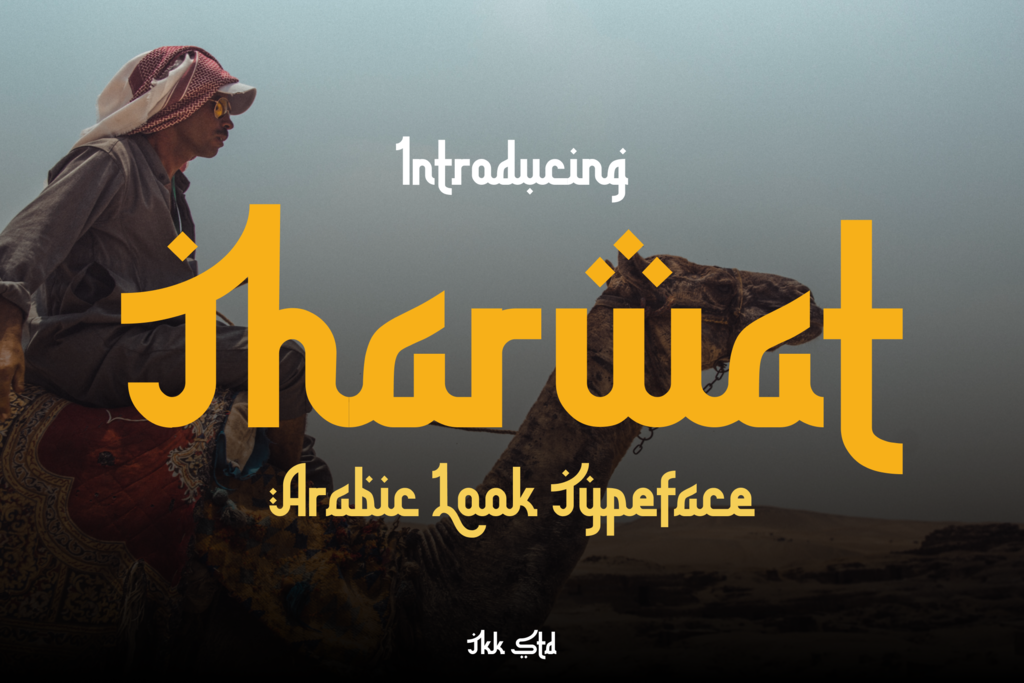
Tharwat Arabic font took the ethnic look of Arabic symbol and embrace it with solidity of sans-serif font. The readability is so good while keeping its middle east vibe.
Suit perfectly for website headline, poster, travelling magazine, and so on.